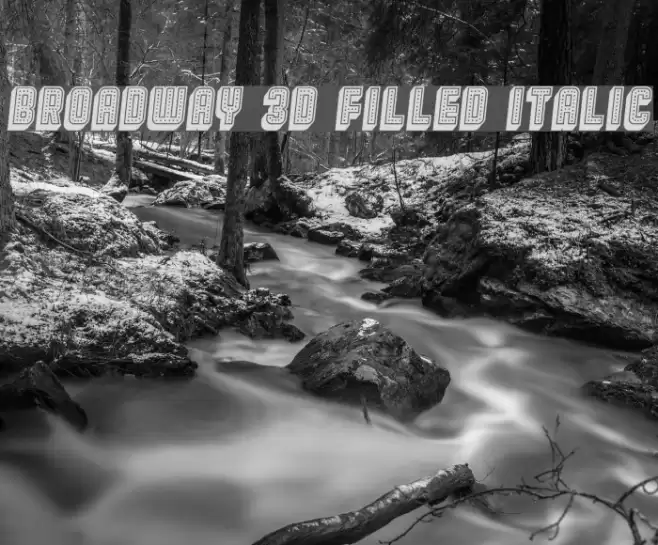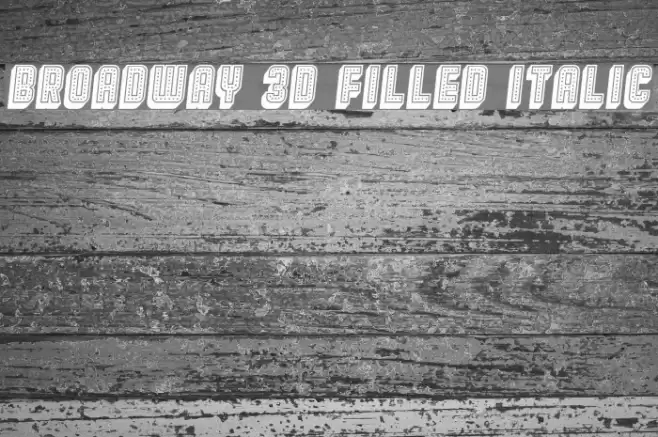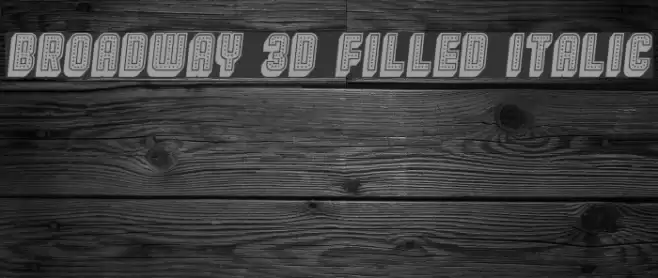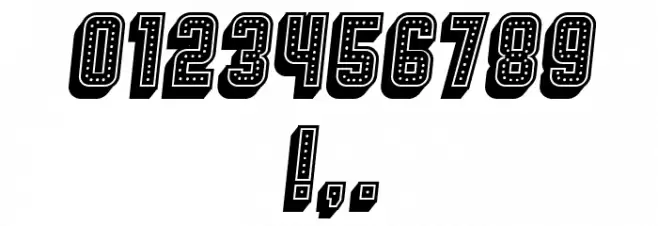
Broadway 3D Filled Italic Font
Broadway 3D Filled Italic Description
This font features a bold, three-dimensional design with a filled interior and italicized slant, creating a dynamic and eye-catching appearance. The characters are outlined with a dotted pattern, adding a decorative touch that enhances its visual appeal. The bold strokes and 3D effect make it ideal for standout text. The italic angle adds a sense of motion and flair, making it suitable for creative and expressive designs. The font's unique style is perfect for projects that require a strong visual impact.
A bold, 3D italic font with a dotted outline for a striking effect from Uncategorized fonts.
- Proposed Projects: Ideal for posters, signage, event invitations, and any design needing a bold, decorative touch.